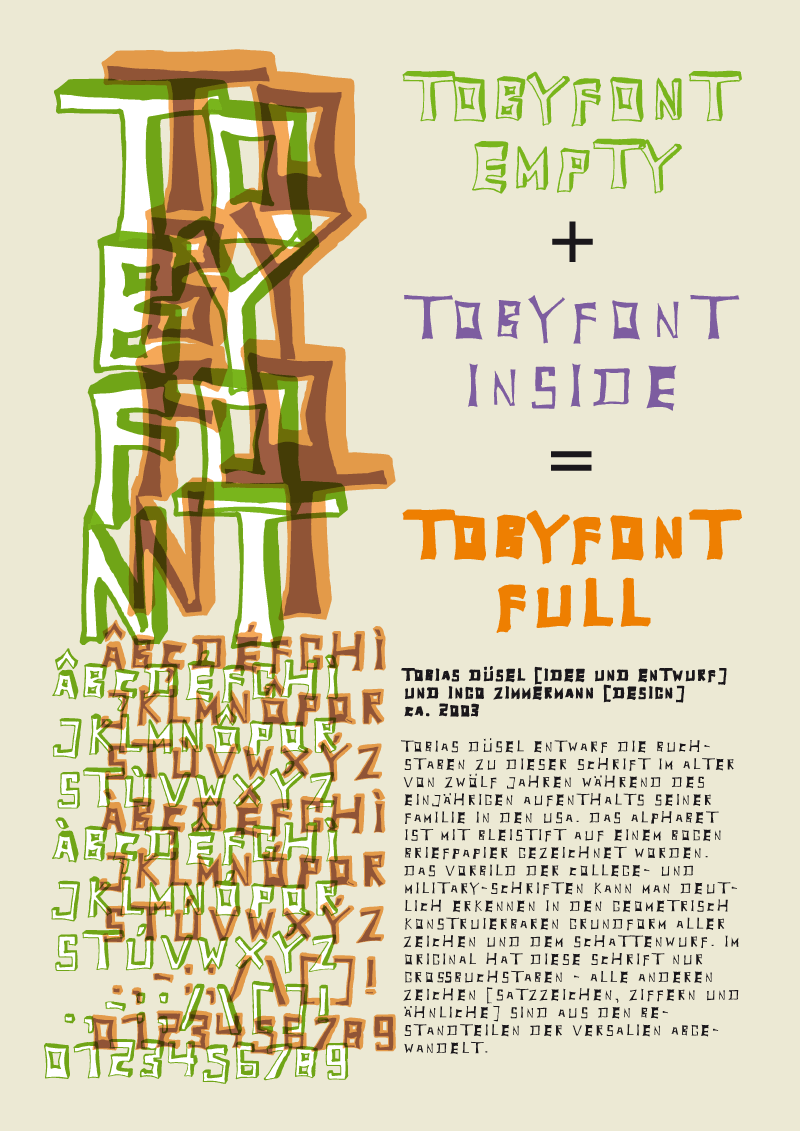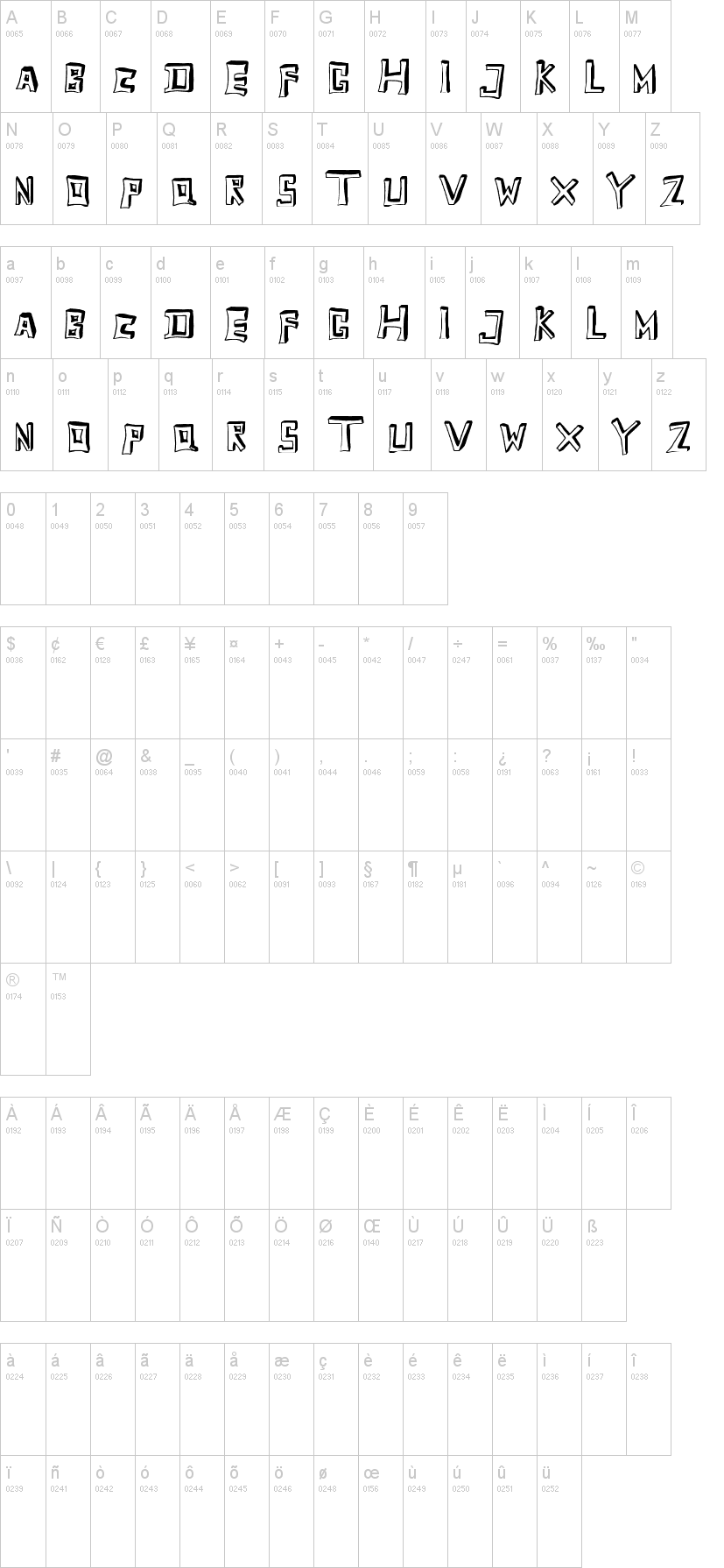
Twelve-year old Tobias Düsel designed the characters of this font in 2002 during his familys furlough in the USA.
He drew the alphabet freehand in pencil on a piece of stationery, and clearly had examples of the well-known college and military fonts in mind. The characters in their basic form are geometrically thought out, as well as the construction of the shadows. But remarkably, while drawing, Tobias Düsel did not reach for the obvious aid of a ruler. In fact, the strokes of the letters are not linear, rather are recognizably well-balanced with declining and increasing straights as can be seen in polished classical fonts.Originally this font consists only of upper case letters all other characters (punctuation marks, figures and similar) have been modified from the components of the capital letters.
Complementary to the original Outline-Shadow-Version TobyFont Empty, the variations TobyFont Inside and TobyFont Full are also available. "Empty" is, so to speak, the frame of the typeface as Inside is the filling, and Full is the sum of both. All three versions have the exact same body size so that they can be placed over one another congruently. In this way the effect of a font in two or three colors can be attained.
This font is excellently suitable for designing picturesque or hand-carved contents; large lines are especially charming and striking.